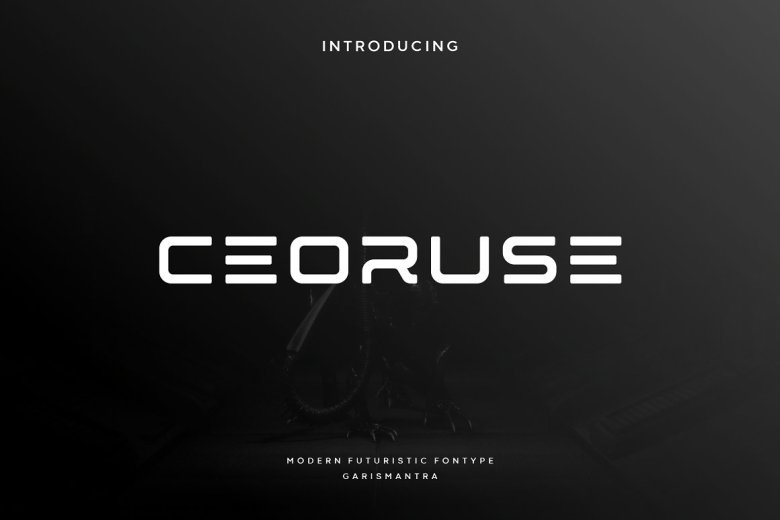
Ceoruse Font
The Ceoruse font collection features futuristic, sophisticated and elegant hi-tech atmosphere and style fonts. Feature this font as a header, tittle, and text style in all of your projects. Ceoruse font may be used in the following technology fields: robot & android, hi-tech, future, virtual reality, outer space, and many others. This font collection is also suitable for all of your futuristic modern looking designs and your own unique design.
Ceoruse Display Font